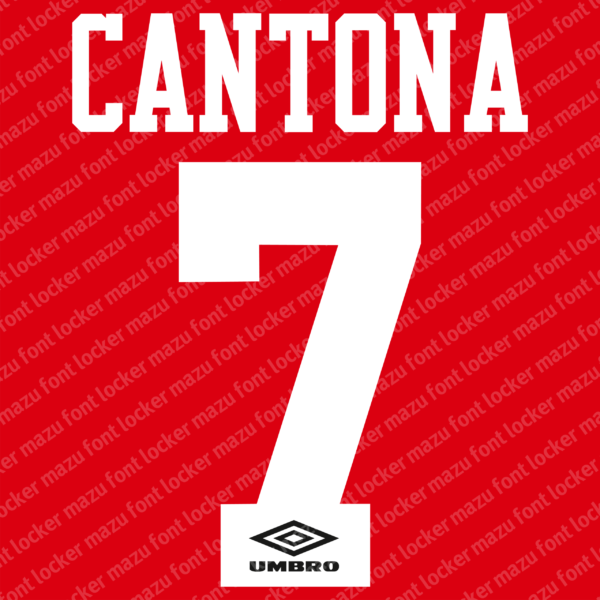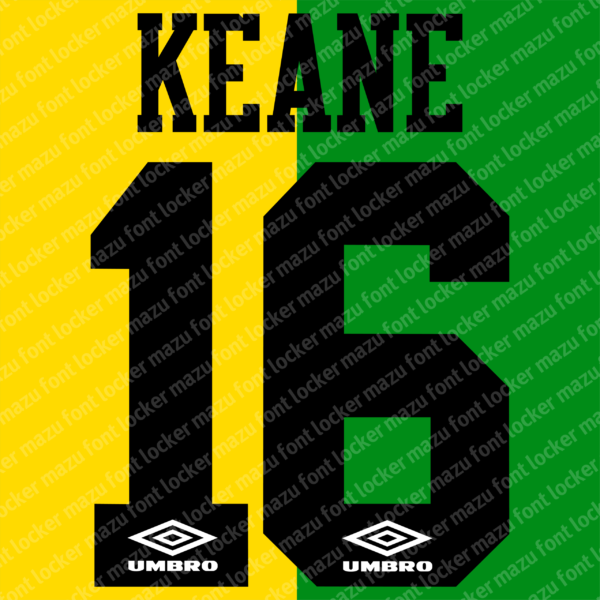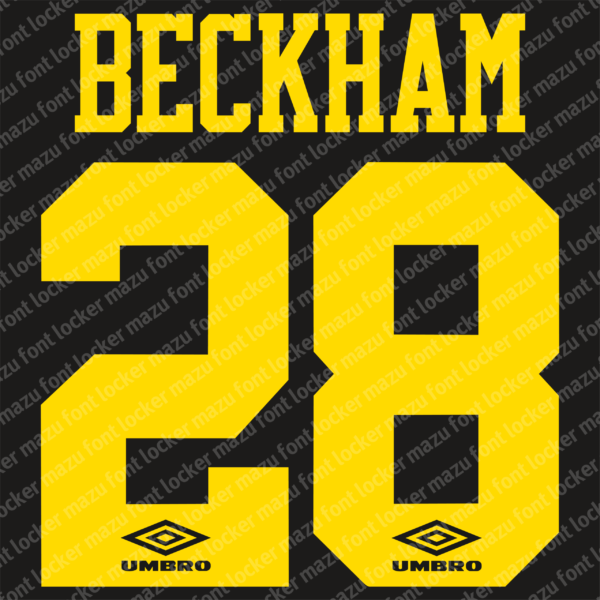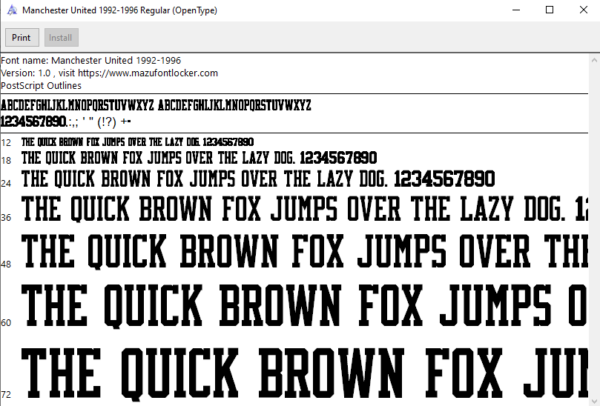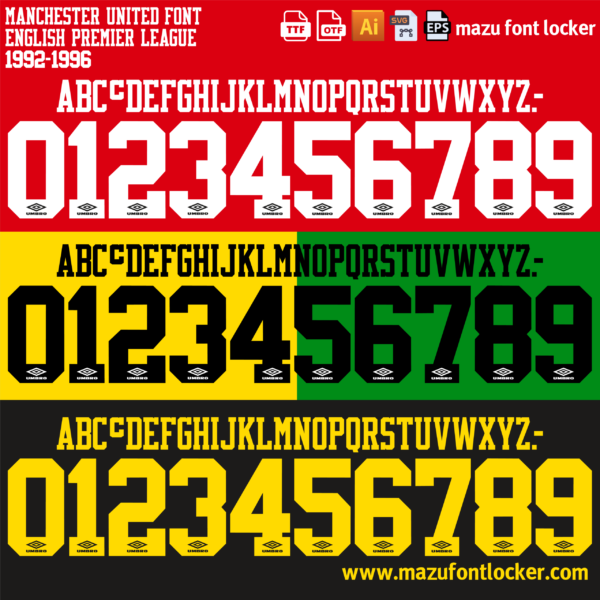
Manchester United 1992-1996 Font Vector – Legendary Fergie Masterpiece
Download Manchester United 1992-1996 Font now and unleash the legendary golden era spirit of the Red Devils straight into your designs. This premium vector font perfectly captures the bold, dominant, and electrifying identity of Manchester United during their unforgettable 1992-1996 period. Every letter and number is crafted with razor-sharp precision, powerful contours, and majestic details that reflect the club’s relentless ambition, attacking brilliance, and historic success under the young Sir Alex Ferguson.
Whether you’re creating matchday posters, fan merchandise, custom jerseys, social media graphics, t-shirts, or premium digital artwork, this Manchester United 1992-1996 Font delivers professional quality with stunning vibrancy and maximum impact. The font masterfully combines modern strength with the authentic red and black identity of Manchester United, making every headline roar with true Old Trafford pride and intensity.
Elevate your projects with authentic Red Devils DNA and let your creativity thunder like the roar of the Theatre of Dreams.
Manchester United 1992-1996 Font Vector
The Manchester United 1992-1996 Font is a premium, high-precision football jersey font vector meticulously engineered to capture the fearless energy, explosive passion, and electrifying identity of Manchester United’s legendary 1992-1996 campaign.
Inspired by the mighty Red Devils and their iconic, high-intensity performances throughout the unforgettable 1992-1996 era, this font unleashes a bold, majestic, and devastatingly powerful presence that radiates unbreakable Manchester United pride, rich heritage, and unstoppable champion spirit. Every letter and number has been painstakingly recreated with razor-sharp precision to embody the vibrant red and black identity, relentless winning mentality, and glorious legacy that makes Manchester United one of the most dominant and feared forces in English football.
Feel the fire of the Theatre of Dreams. Ignite the passion. Unleash the legendary spirit of the Red Devils and the unstoppable power of Manchester United 1992-1996.
🔥 Manchester United 1992-1996 Font Features
• Authentic 1992-1996 Manchester United jersey lettering style
The authentic lettering style helps recreate the classic look of the Manchester United 1992-1996 kit with professional accuracy.
Unlike generic jersey fonts, this set is designed with a strong focus on authenticity and accuracy. Every detail is based on the original match lettering style used during the 1992-1996, helping designers and collectors create realistic football shirt designs.
This Manchester United 1992-1996 font vector set is designed for authentic football jersey customization and works perfectly for retro football projects, collector designs, and professional sportswear artwork.